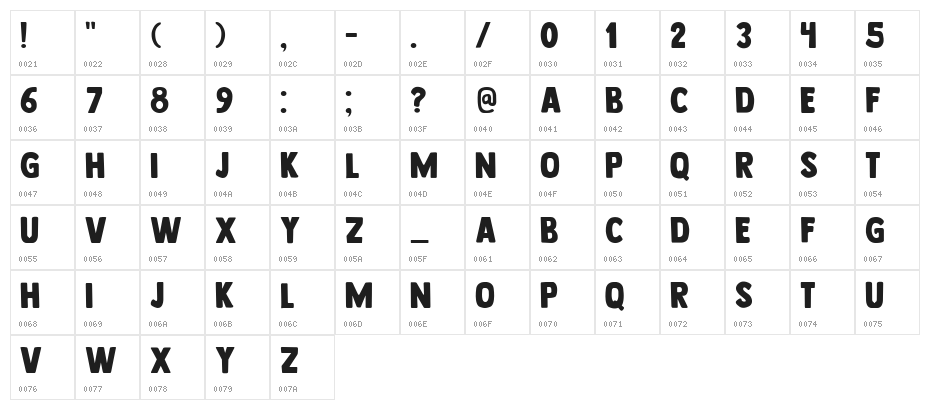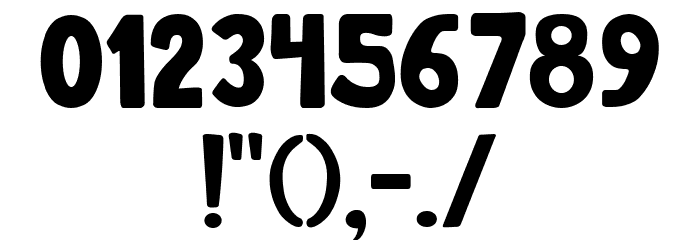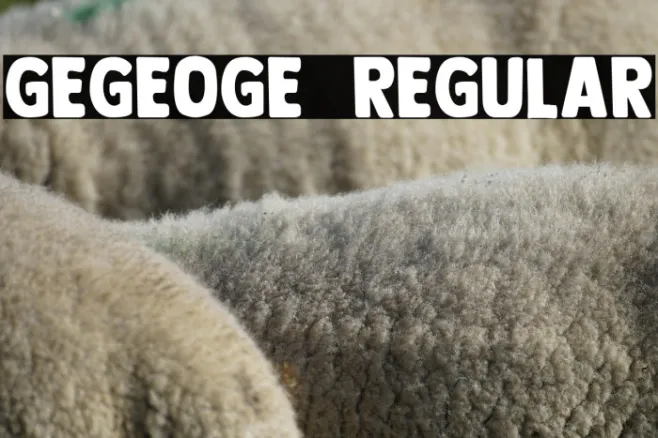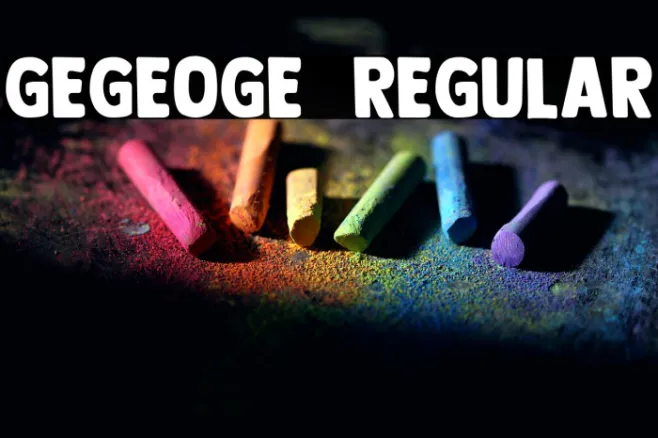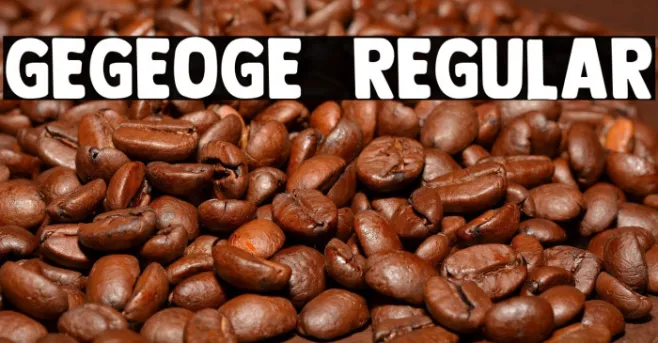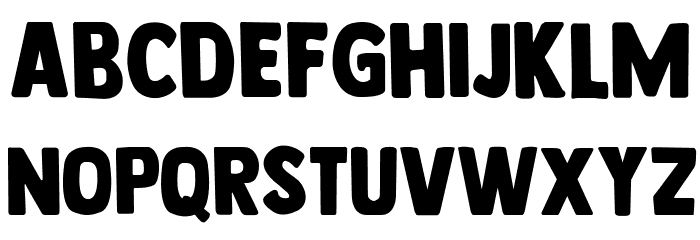
GEGEOGE Regular Font
GEGEOGE Regular Description
This font features bold, rounded characters with a playful and friendly appearance. The uppercase letters are consistent in height, while the lowercase letters maintain a similar width, creating a harmonious look. The numbers are equally bold and rounded, matching the style of the alphabet. Special characters are designed with the same playful curves, making them stand out. The overall design is approachable and suitable for a variety of creative projects.
| Proposed Projects | Ideal for children's books, playful branding, posters, and casual invitations. |